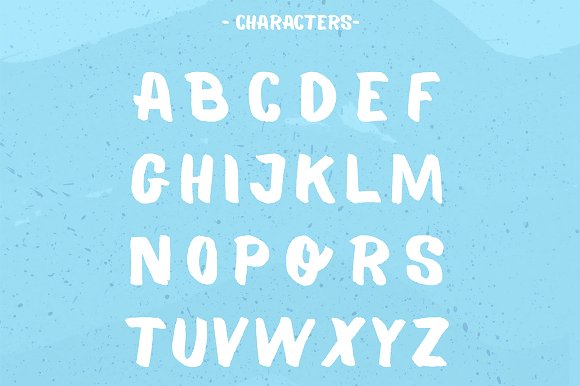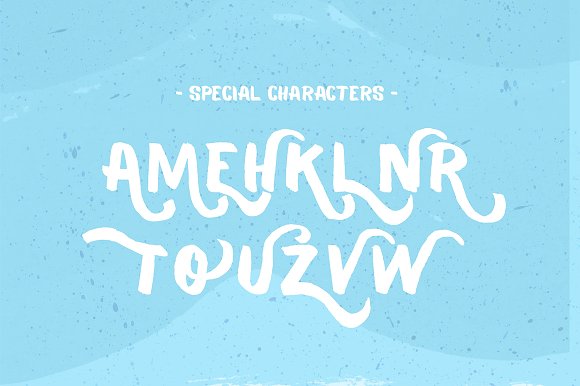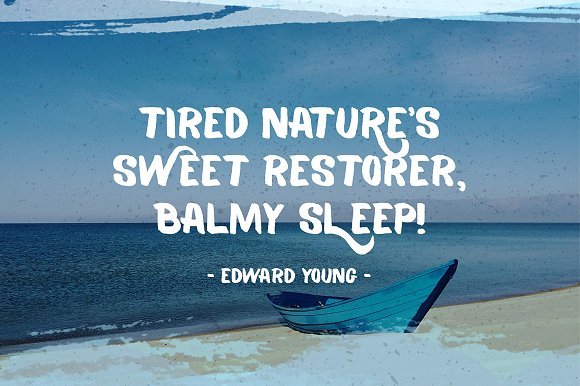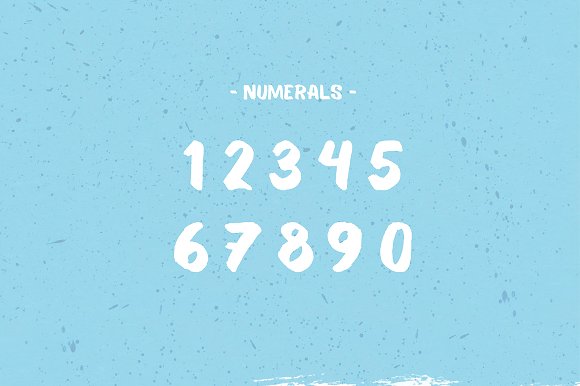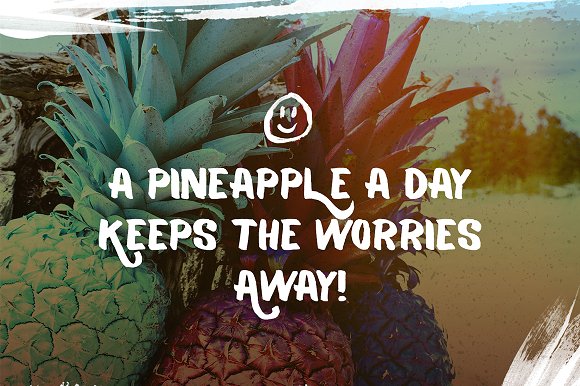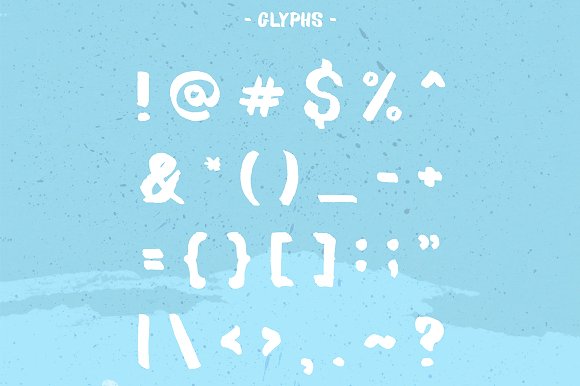
Unleashing the Charm of Handmade Typography
There’s something special about the early morning hours, when the world is still waking up, and creativity flows freely. It’s a time when the lines between dreams and reality blur, and the possibilities seem endless. For designers, it’s a moment of inspiration, when the perfect font can elevate a project from ordinary to extraordinary.
Enter the Balmy Brush Font, a beautifully crafted handmade brush font designed by Boris Garic. With its unique blend of vintage and grungy flair, this font is perfect for adding a touch of personality to your designs. Whether you’re working on a branding project or creating a social media campaign, the Balmy Brush Font is a valuable addition to your toolkit.
Key Features of Balmy Brush Font
- Unique Characteristics: Hand-painted brush strokes and subtle texture, giving it a warm and organic feel
- Language Support: Supports a wide range of languages, including Latin, Greek, and Cyrillic scripts
- Font Weight: Available in 3 different font weights: Light, Regular, and Bold
- Font Style: Available in 2 different font styles: Regular and Italic
Balmy Brush Font Review
Overall, I’m really enjoying working with the Balmy Brush Font. It’s a great addition to any design project, especially those with a warm, natural vibe. ✨ The font’s organic feel and subtle texture add a lot of depth and interest to text.
Here are some of the things I like about Balmy Brush Font:
- Unique texture and feel that adds character to text ✨
- Works well for headings and body text in a variety of contexts ✨
- High-quality rendering, even at smaller font sizes ✨
Of course, no font is perfect, and Balmy Brush Font has some limitations:
- May not be suitable for projects with a lot of fine print or small text ⚠️
- Can be a bit overwhelming if used in excess ⚠️
- Not ideal for projects with a highly technical or formal tone ⚠️
Overall, I think Balmy Brush Font is a great choice for designers looking to add some personality and whimsy to their projects. Just be mindful of its limitations, and use it thoughtfully to get the best results.
To get the most out of Balmy Brush Font, use it for:
- Creative projects, such as invitations, posters, and social media graphics.
- Watercolor-inspired designs, such as illustrations and artwork.
- Adding a touch of whimsy and personality to your text.
Remember to experiment with different font sizes, colors, and styles to achieve the desired effect.
Alternatives to Balmy Brush Font
Great Vibes is a modern calligraphy font that is perfect for creating elegant and sophisticated designs. It is ideal for use in wedding invitations, event branding, and luxury product packaging. Great Vibes has a more refined and polished look compared to Balmy Brush Font, making it a great choice for high-end designs.
Curry Script Font
Curry Script is a beautiful and expressive script font that is great for creating handwritten and artistic designs. It is ideal for use in food and beverage branding, packaging, and advertising. Curry Script has a more playful and whimsical look compared to Balmy Brush Font, making it a great choice for designs that require a lot of personality.
Luckiest Guy Font
Luckiest Guy is a modern script font that is perfect for creating bold and eye-catching designs. It is ideal for use in sports branding, advertising, and entertainment. Luckiest Guy has a more energetic and dynamic look compared to Balmy Brush Font, making it a great choice for designs that require a lot of excitement.
Cream Soda is a beautiful and elegant script font that is great for creating vintage and retro-inspired designs. It is ideal for use in packaging, advertising, and branding for nostalgic products. Cream Soda has a more classic and sophisticated look compared to Balmy Brush Font, making it a great choice for designs that require a lot of nostalgia.
Projects Featuring Balmy Brush Font
Design unique and elegant wedding invitations that set the tone for a romantic and intimate celebration.